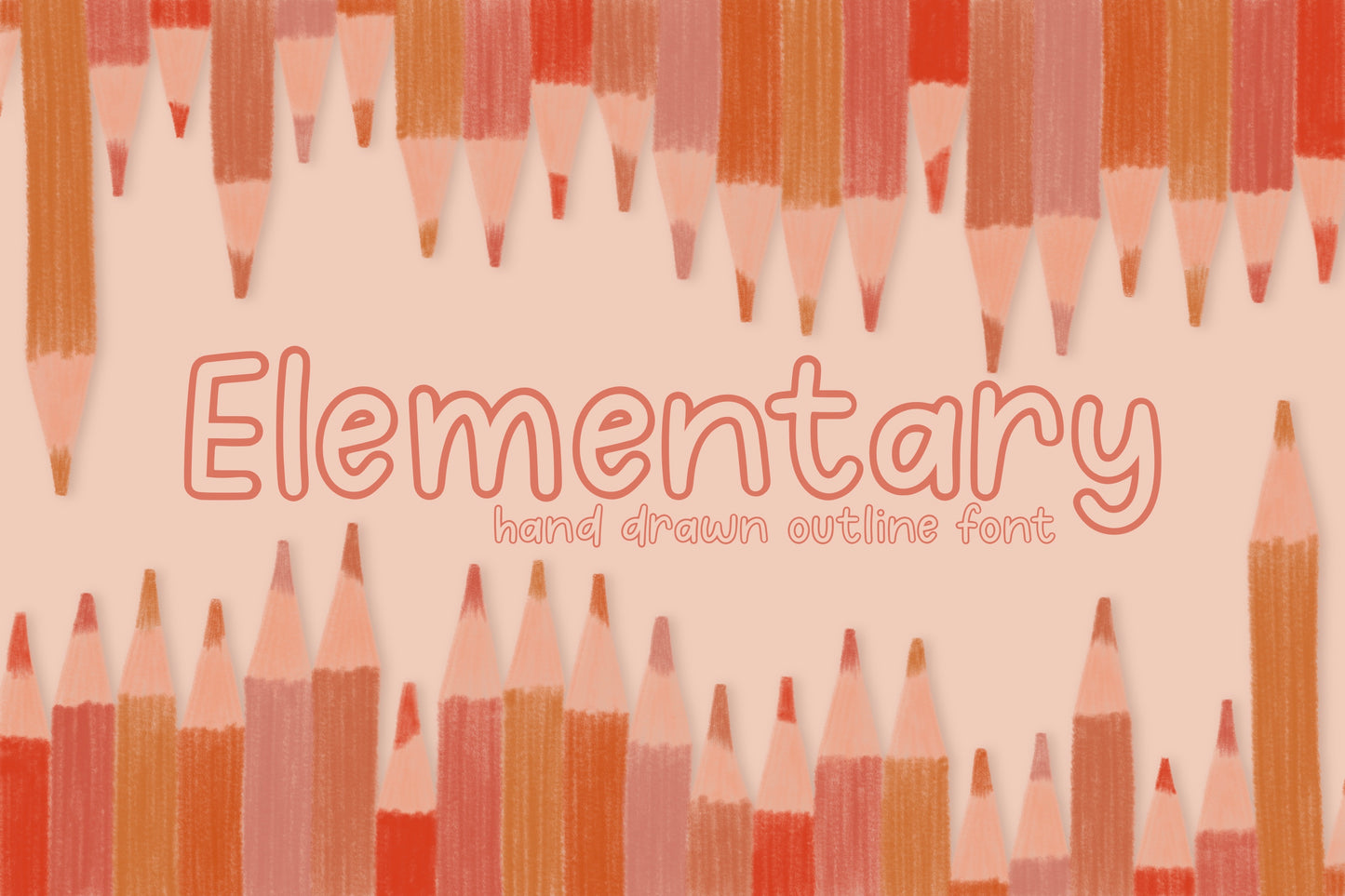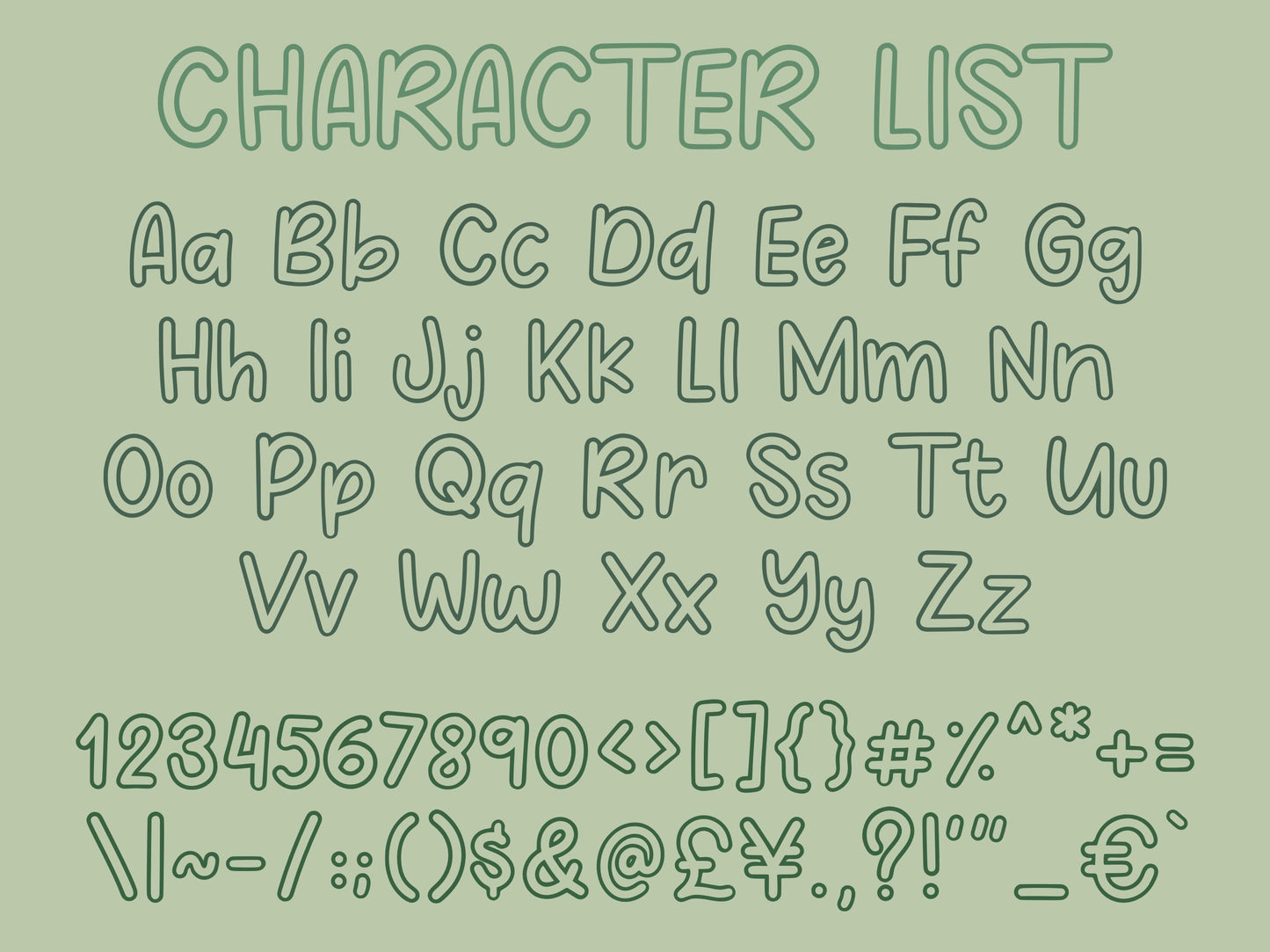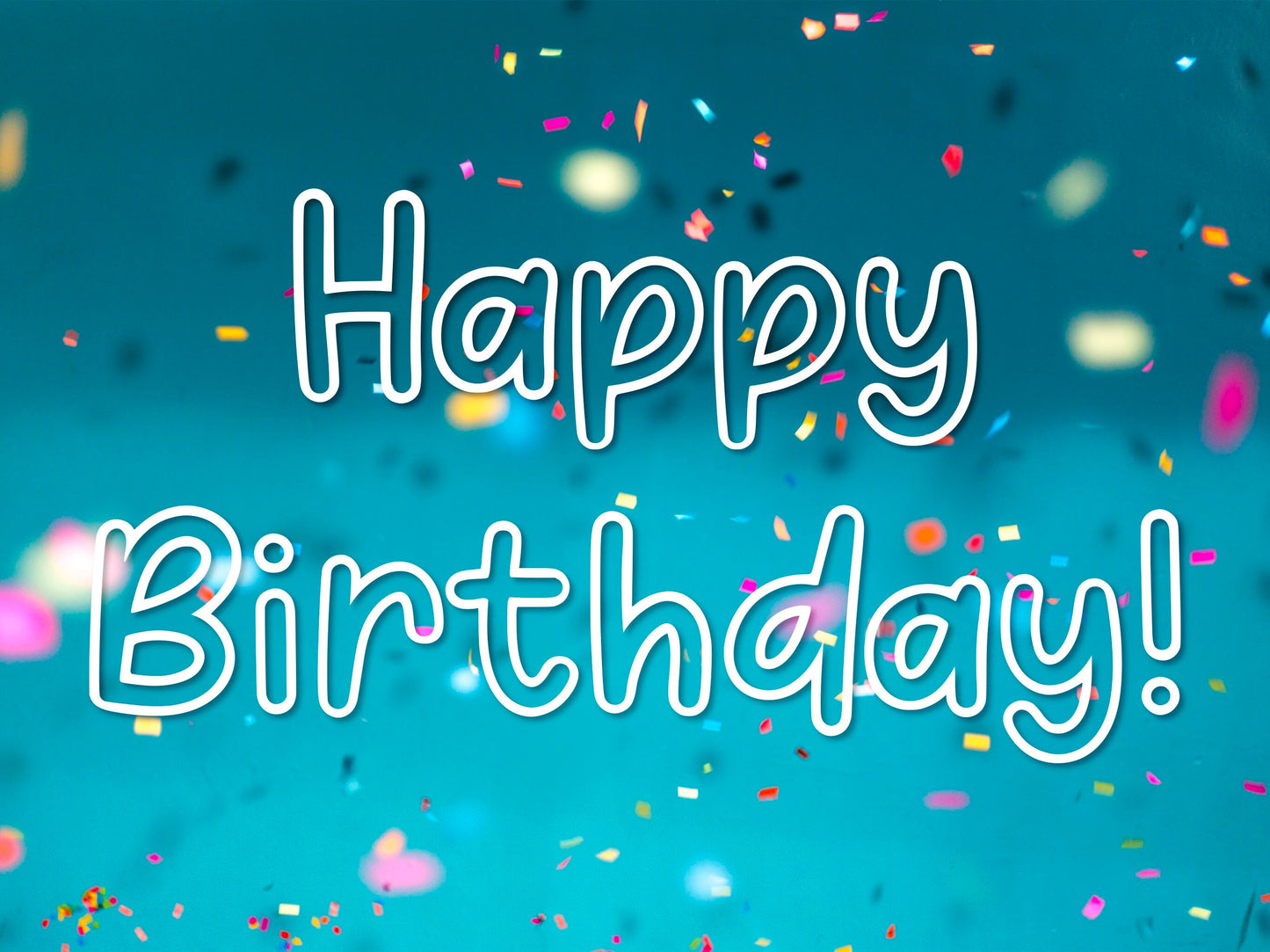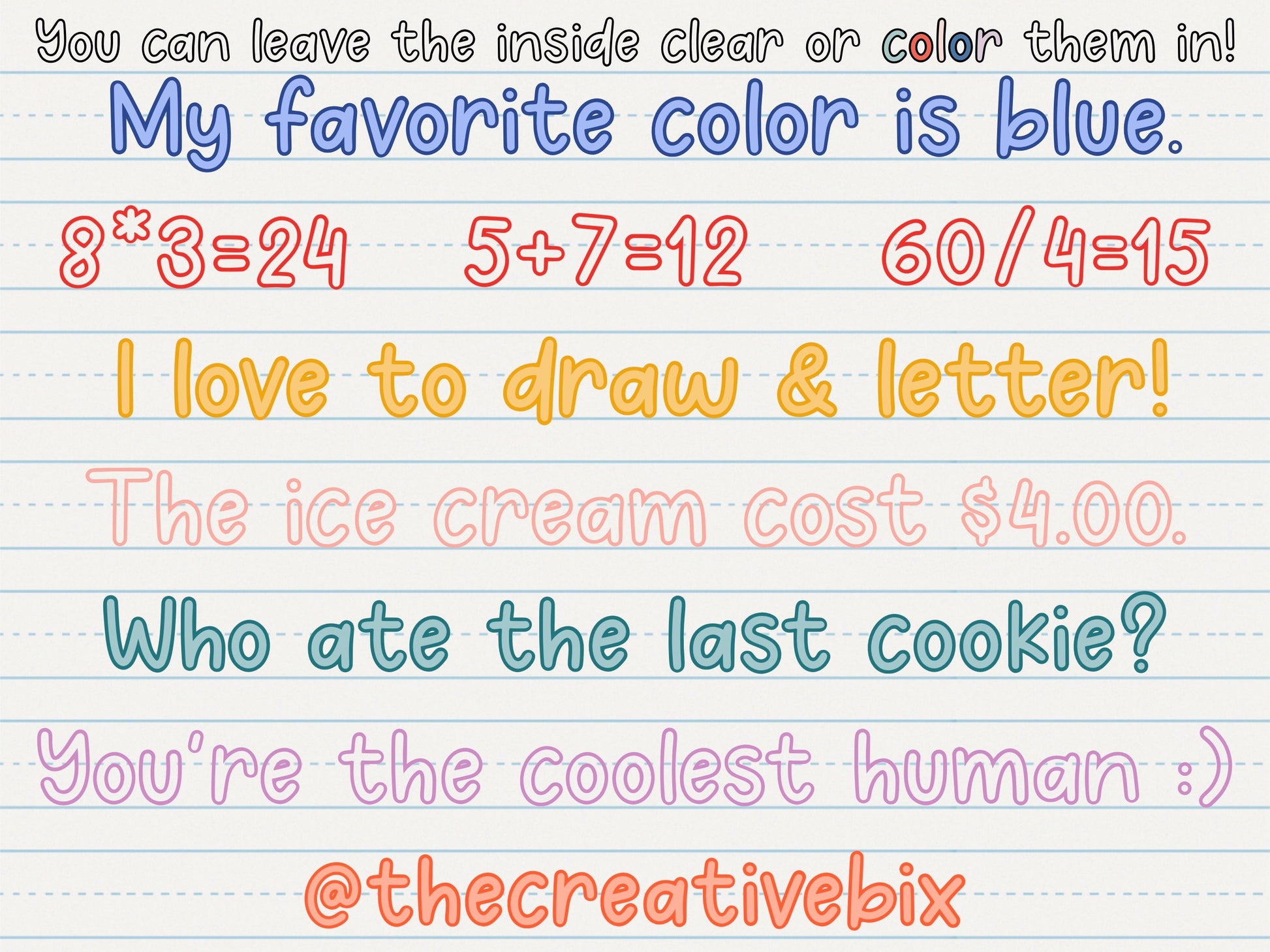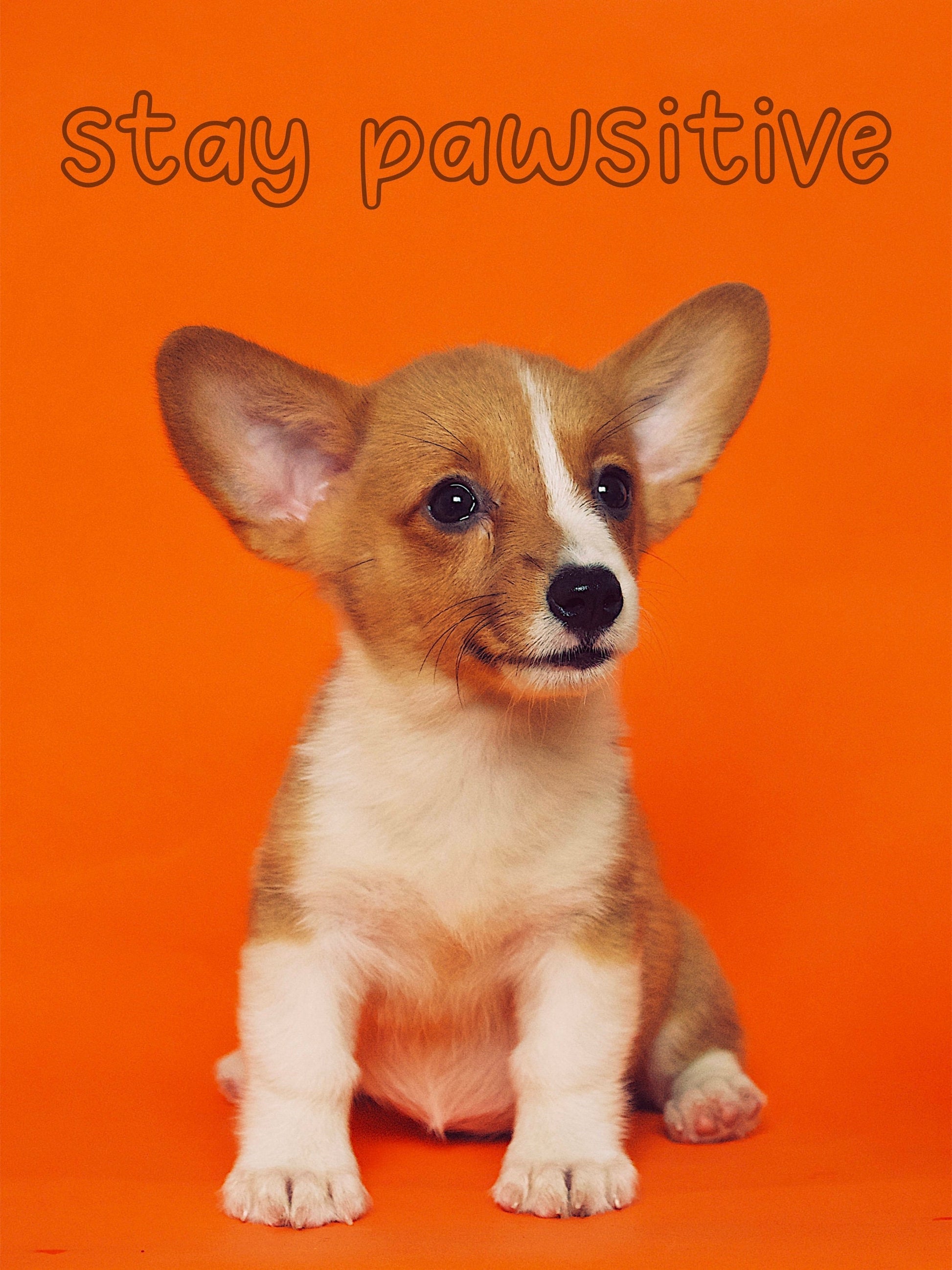
Elementary Handwritten Font
This is the Elementary handwritten/hand drawn font. This unique, hand lettered outline font will add a youthful, playful, handmade touch to your design! This versatile font is great for casual, casual occasions, designs, and logos!